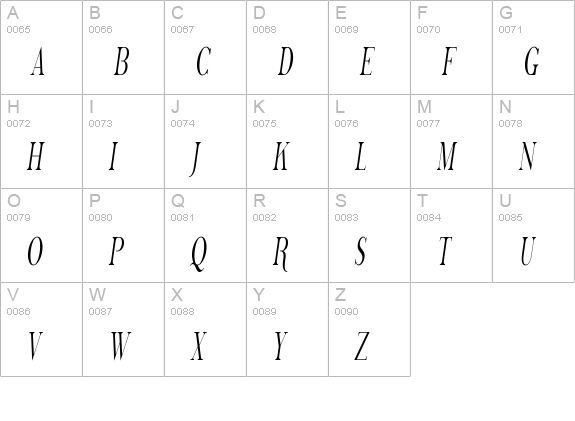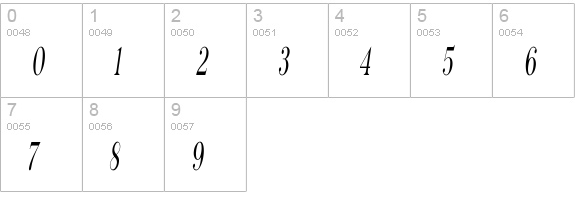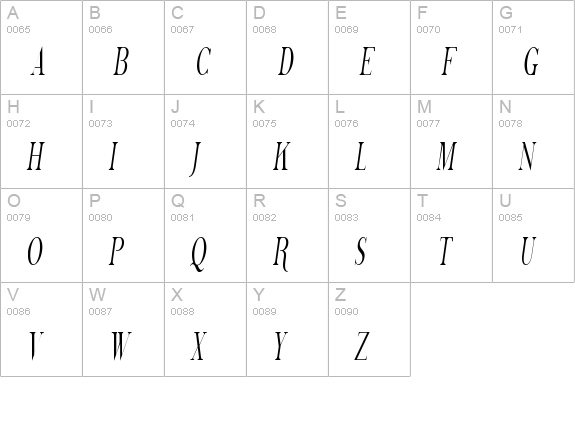
Introducing Phosphorus Trichloride font, a sleek and modern typeface that exudes sophistication and elegance. With its clean lines and sharp edges, this font is perfect for adding a touch of class to any design project. The Phosphorus Trichloride font is versatile and can be used for a wide range of applications, from branding to editorial design. This font is available for free download at FontsMarket.com, making it easily accessible to designers and creators looking to elevate their work with a stylish and contemporary font choice. Don't miss out on the opportunity to enhance your projects with the timeless appeal of Phosphorus Trichloride font.